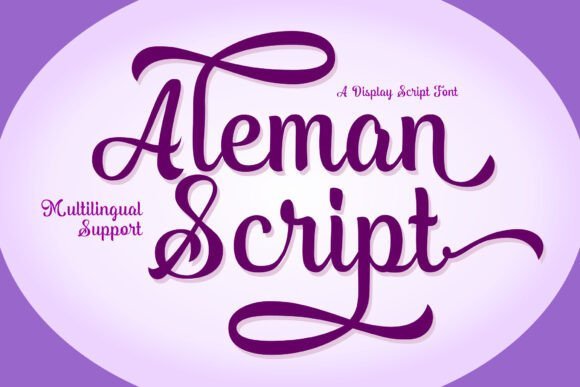
The Perfect Blend of Vintage Charm and Modern Style
Have you ever stared at an old photograph, mesmerized by the worn, elegant letters that seem to whisper stories of the past? That’s exactly the kind of magic that the Aleman Script Font brings to your designs. This modern vintage display font is a masterful blend of classic charm and modern flair, perfect for adding a touch of sophistication to your projects.
Whether you’re crafting a logo, poster, or any other design that needs a dash of vintage allure, the Aleman Script Font is your go-to choice. Its smooth, flowing letters evoke the nostalgia of a bygone era, while its bold, retro style ensures that your design stays contemporary and on-trend. For designers, the Aleman Script Font is a valuable addition to their toolkit, offering endless possibilities for creative expression.
Aleman Script Font Key Features
- Font Style: Script, Calligraphy
- Character Set: Latin (Western European), Cyrillic
- Unique Characteristics: Hand-drawn, elegant, and cursive design, perfect for creative and artistic projects
Aleman Script Font Review
I recently had the chance to work with Aleman Script Font, and I must say it’s a beautiful addition to any design project. ✨ The font’s elegant, handwritten feel adds a touch of sophistication to any text, making it perfect for wedding invitations, branding materials, or even advertisements. ✨ The subtle irregularities in the letterforms give the font a unique, human touch that’s hard to find in other script fonts.
However, I did encounter a few limitations. ⚠️ For one, the font can be a bit difficult to read at smaller font sizes, especially in digital formats. This might make it less suitable for text-heavy content or small-screen applications. ⚠️ Additionally, the font’s complexity can make it challenging to pair with other fonts, as it may overpower simpler fonts and disrupt the overall design balance.
Overall, I’m impressed with Aleman Script Font’s potential and versatility. While it may have its limitations, it’s a great choice for designers looking to add a touch of elegance and sophistication to their work. Just be mindful of its potential drawbacks and use it thoughtfully to get the most out of this beautiful font.
Pros:
- Elegant, handwritten feel
- Unique, human touch
- Perfect for branding, invitations, and advertisements
Cons:
- Difficult to read at small font sizes
- Challenging to pair with other fonts
Aleman Script Font Practical Application Guide
For the most out of Aleman Script Font, use it for titles, headings, and quotes. This font is ideal for creating a vintage or distressed look. Use it in wedding invitations, quotes, or any design where a unique, handwritten feel is desired.
Alternatives to Aleman Script Font for Designers
Carolyna Pro is a beautiful, elegant script font perfect for creating high-end designs. It’s ideal for use in invitations, wedding stationery, and luxury branding.
Compared to Aleman Script Font, Carolyna Pro has a more refined and sophisticated look, making it suitable for premium brands and high-end designs. While Aleman Script Font has a more rustic feel, Carolyna Pro exudes luxury and elegance.
Great Vibes is a modern script font that’s perfect for creating bold and eye-catching designs. It’s ideal for use in advertising, social media graphics, and digital marketing materials.
Compared to Aleman Script Font, Great Vibes has a more energetic and playful feel. While Aleman Script Font is more rustic and vintage-inspired, Great Vibes is more modern and trendy.
Dancing Script is a lively and energetic script font perfect for creating fun and playful designs. It’s ideal for use in children’s products, party invitations, and social media graphics.
Compared to Aleman Script Font, Dancing Script has a more whimsical and carefree feel. While Aleman Script Font is more rustic and vintage-inspired, Dancing Script is more playful and fun.